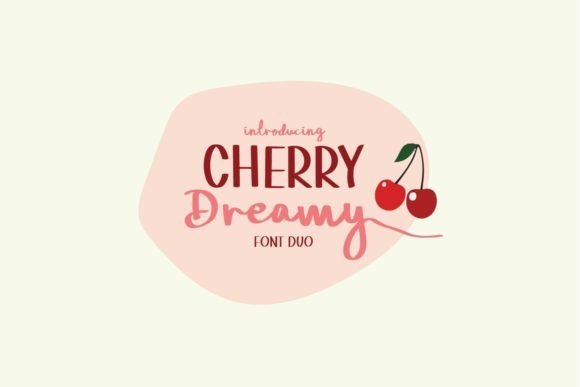
Unlock the Magic of Cherry Dreamy Font
Have you ever been brainstorming a new design project, flipping through font options, and suddenly, a spark of inspiration hits? You imagine the perfect font that exudes warmth and elegance, making your creation stand out from the crowd. For designers seeking that perfect match, the Cherry Dreamy Font duo is a game-changer.
This lovely combination of a script and sans serif font is designed to work in harmony, elevating your designs to new heights. With its PUA-encoded feature, you can easily access all the glyphs and swashes, adding an extra layer of creativity to your projects. Whether it’s branding, headings, web design, or quotes, the Cherry Dreamy Font is the perfect companion for any creative endeavor.
As a designer, you understand the value of having the right tools at your disposal. The Cherry Dreamy Font is a valuable addition to your design arsenal, offering endless possibilities for creative expression and bringing your ideas to life in a unique and captivating way.
Key Features of Cherry Dreamy Font
- Unique Characteristics: Distinctive dreamy and playful style, with elegant and cursive lines, perfect for creating a whimsical and romantic atmosphere
- Font Family: Includes a range of weights from Light to Bold, providing flexibility for various design applications
- Language Support: Supports multiple languages, including Latin, Cyrillic, and Greek alphabets, making it suitable for international designs
- Scalability: Optimized for use in various font sizes, from small text to large headings, ensuring legibility and readability
Cherry Dreamy Font Review
I recently had the chance to work with the Cherry Dreamy Font, and I have to say, it’s a mixed bag. Here are my honest thoughts:
- Playful and whimsical feel: The Cherry Dreamy Font has a certain je ne sais quoi that’s perfect for design projects that need a touch of personality.
- Good legibility: Despite its cursive nature, the font is still easy to read, even at smaller sizes.
- Customization options: The font comes with a range of weights and styles, allowing for some great customization possibilities.
- Not ideal for body text: While the font is great for headings and titles, it’s not the best choice for large blocks of body text.
- Limited support for non-Latin scripts: Unfortunately, the font doesn’t include support for many non-Latin scripts, which can be a limitation for designers working on international projects.
- May not be suitable for formal designs: The Cherry Dreamy Font has a somewhat informal, playful feel that might not be suitable for more formal design projects.
Overall, I think the Cherry Dreamy Font is a solid choice for designers looking to add some personality to their projects. While it has some limitations, it’s a great option for headings, titles, and other design elements where you want to make a statement. Just be aware of its limitations, and you’ll be able to use it effectively in your designs.
Use Cherry Dreamy Font for titles, headings, and emphasis to add a touch of whimsy and playfulness to your designs. Experiment with different font sizes and colors to create visual interest. Combine with other fonts to create a unique and eye-catching typography.
Cherry Dreamy Font is ideal for:
- Blogs and social media posts
- Children’s books and educational materials